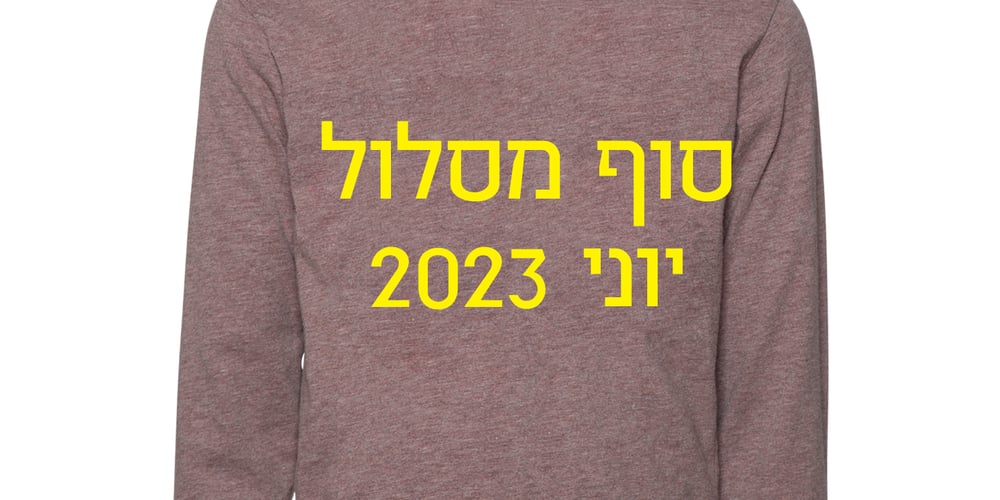
Fried Coteret MF Font Family was designed by Eliyahu Fried and published by Masterfont. Fried Coteret MF contains 3 styles and family package options. A practical font family for all your needs: headlines, body text, signage etc. High legibility at small sizes.